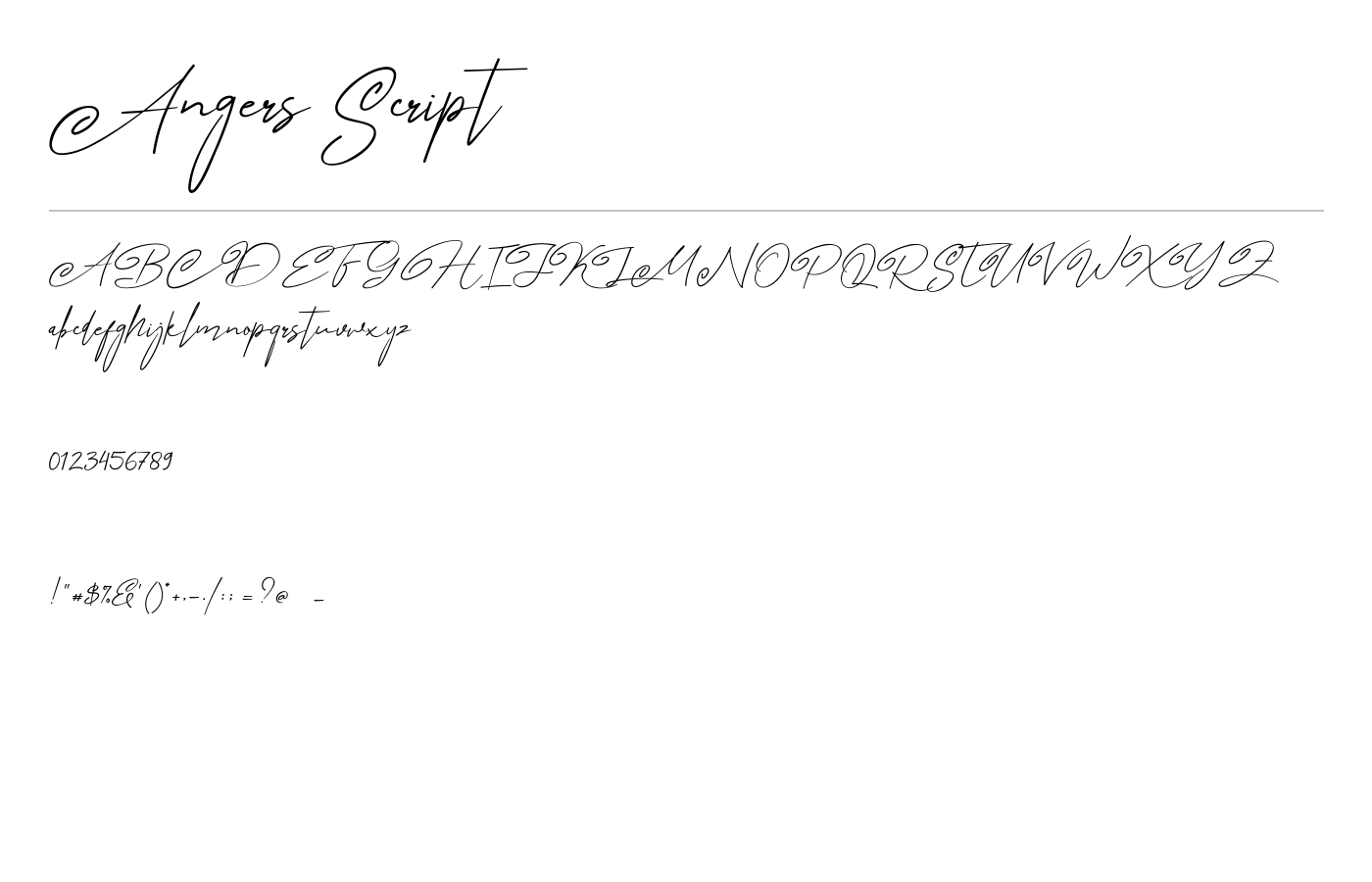
Angers Script is an elegant, light-weight script font with delicate, flowing strokes that mimic graceful handwriting. Its slender, slightly condensed letterforms and subtle flourishes give it a refined yet approachable feel, making it ideal for wedding invitations, luxury branding, and sophisticated editorial design where a personal touch is desired. This font works beautifully in headlines or decorative text, adding a charming and stylish flair without overpowering the overall design.
Angers Script Font
About Angers Script Font